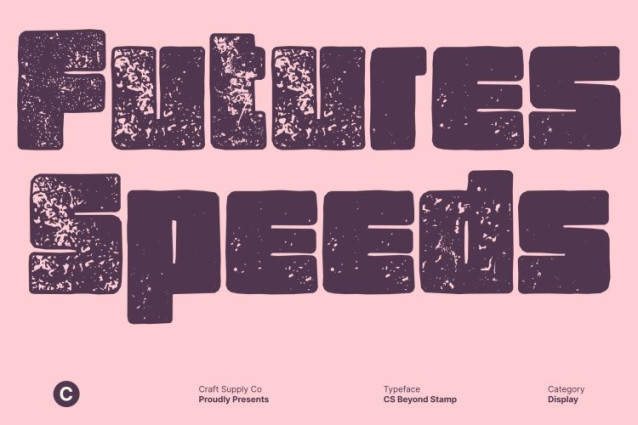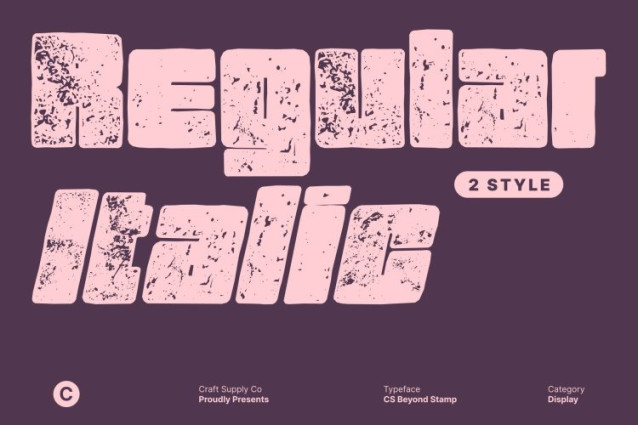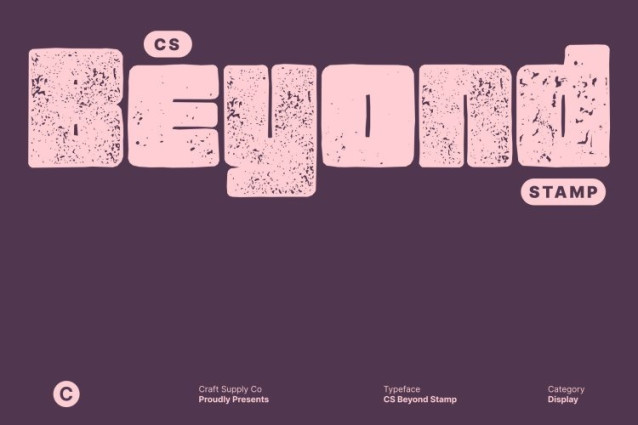
CS Beyond Stamp Font
CS Beyond Stamp Font This is a bold sans serif font featuring a condensed, modern silhouette. Its narrow yet powerful letterforms create a striking visual presence while maximizing space efficiency. Enhanced with a stamp effect, the font gains subtle texture and distressed detail, introducing a vintage, hand-pressed character that adds depth without reducing clarity.
Confident Contemporary Vibe with Textured Depth
Designed to project confidence and modern energy, this font combines bold weight with a sleek condensed form. The stamped texture softens its sharp geometry, giving it an expressive edge that balances contemporary minimalism with old-style print charm perfect for designs that want to feel modern yet tactile.
Perfect for Trendy, Edgy, and Street-Inspired Designs
This font excels in branding, social media graphics, posters, and product packaging. Its assertive personality paired with a textured finish makes it especially effective for fashion branding, streetwear visuals, youth-oriented campaigns, and lifestyle projects that demand bold expression with character.
Versatile Across Creative Applications
From digital content to print design, this font adapts effortlessly across creative platforms. Its clean lines, bold construction, and stamped vintage texture make a versatile choice for designers seeking strong visual impact infused with modern style and expressive depth.